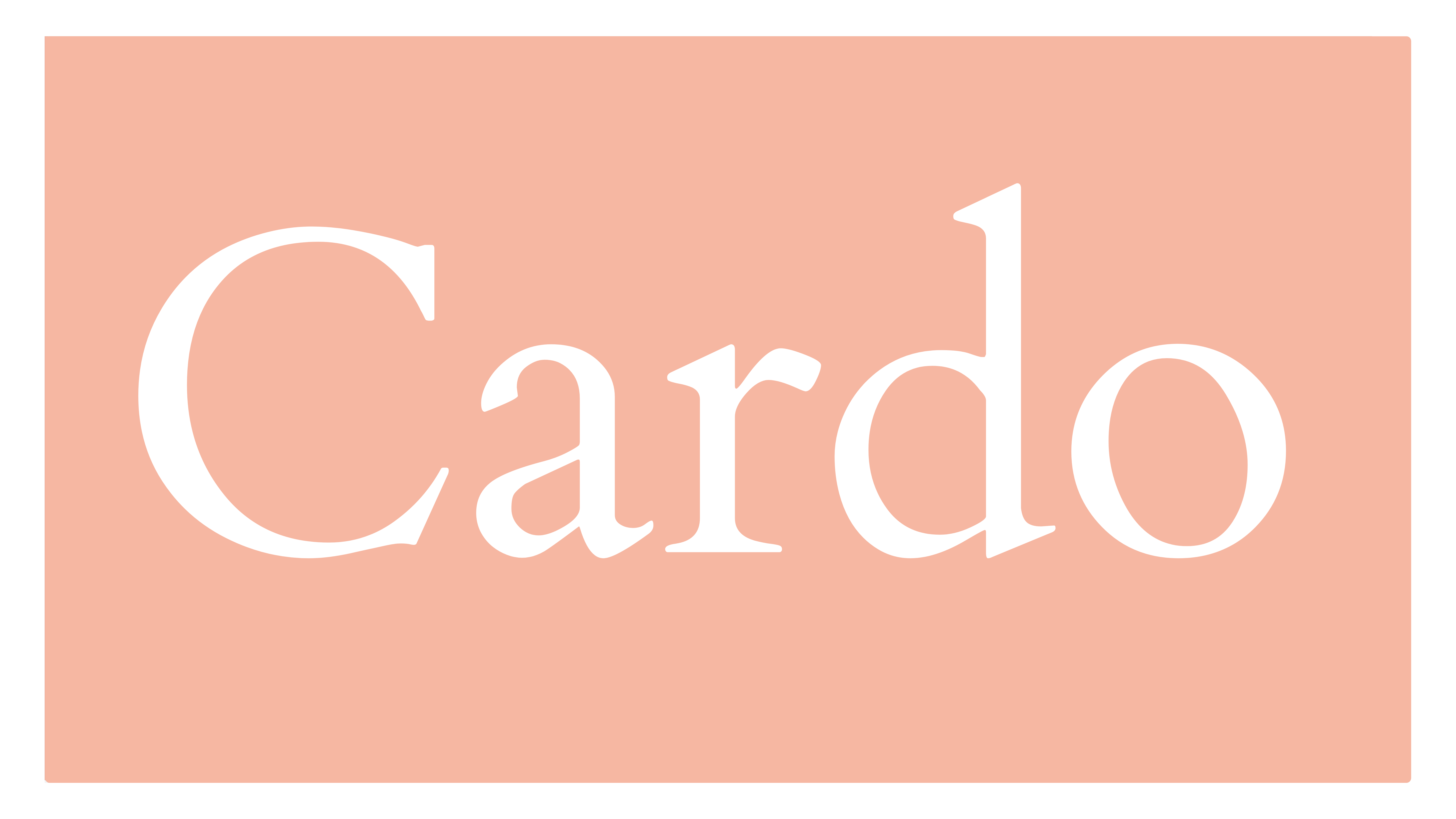
The best fonts in Canva, definitively
Your complete guide to the best of Canva's database of over 5,000 fonts.
Canva is a widely used online design platform that has been rising in popularity since 2023. Its exponential growth is due to its ease of use and ability to create web-friendly graphics completely free of charge in only a few clicks and adjustments. It includes a wide selection of fonts, and you don’t need to be a designer to know that a font choice is one of the most important branding decisions you can make, whether for a small business, large business or freelancer.
Luckily, Canva gives you access to over 5,000 fonts. Not many people have the time to sift through all of these options, so we’ve filtered it down for you! We’ve prepared the ultimate selection of the best fonts on Canva, some of which are available with the free plan, and some which require the Canva Pro subscription (which costs only $15 per month). Consider this guide the complete round-up of the best fonts Canva has to offer – so save it in your bookmarks tab for the next time you need to choose a new font.
Garet is a sans serif font designed for website copy. The roundness of the letters and their stems create a friendliness while its masculine presence and definition of its lines maintain a professional feel.
Noto Serif is a popular font widely available for use in online settings, including in Canva’s free plan. It’s a serif font that’s easy on the eyes and comes equipped in regular and bold on Canva’s software.
Bebas Neue is also available to download on DaFont and many designers use it in their Adobe software. It's a clean and lean set of lettering that will make any project appear professionally designed.
Canva’s own sans serif font is homogeneous of Helvetica, only the lines of Canva Sans cut a thinner figure and are ever-so-slightly more widely spaced, giving it a lighter finish than usual for a sans serif font.
As an open-source font available across many online tools, Poppins' finish is functional and allows for versatility in editing for those who wish to add their own touches. Not the centre of attention, it lets you put your design in the spotlight.
We all need a retro font of the digital glitch persuasion at one point or another. This one is the most open-minded of the SCR-N Seven font family, and is a go-to for typography reminiscent of the retro electronics of the digital boom.
The standard sans serif font for most websites and online platforms, Open Sans is a familiar font that’s easy on the eyes. Its prevalence in online material means that it’s perfect for professional body text as it doesn’t clock with the brain.
Stripped back and feminine, Prata’s serif typeface is perfect for a luxury finish. With more pronounced flourishes than standard, it's also available on many website builders, making it a strategic option for those also creating their own websites.
Although Cardo is a serif font, its flourishes aren’t quite as prominent as those in Prata. Its lighter weight makes it more refined, ideal for a project in need of a touch of elegance. Cardo is also available on Adobe.
Also available on DaFont, Drunken Hour is a distinctive style that mimics the jolty lettering of old printing presses. Currently trending online, this would be a useful font to include in your projects to help to catch the attention of the algorithms.
Yearbook Solid is a refined version of the varsity-style typography often seen in the context of American schools and universities. Yearbook Solid is ideal for this genre as it creates something defined without being too over-stylised or rigid.
One of the most commonly used serif fonts on the web, this is perfect for ensuring font consistency across multiple platforms. Its wider letters open up the text and its roundness at the end of each stem invites the audience into a comforting read.
Gistesty reflects the extra-stylised handwriting often seen on invitations and events branding. It was made by Creatype Studio - a leading font creation company especially known for its decorative fonts - and Gistesy leads as one of its most popular.
A more legible option than most script fonts, The Something Script is exclusive to Canva. Its similar to Gistesty in flourish, but lighter and more delicate. This would efficiently create a recognisable piece of branding with the right colour choices.
The whole Mokoto Glitch font family is habitually used by Canva users for the novelty digital glitch effect, and this is the most flexible and least rigid of the bunch, leaving room for distinctive additions.